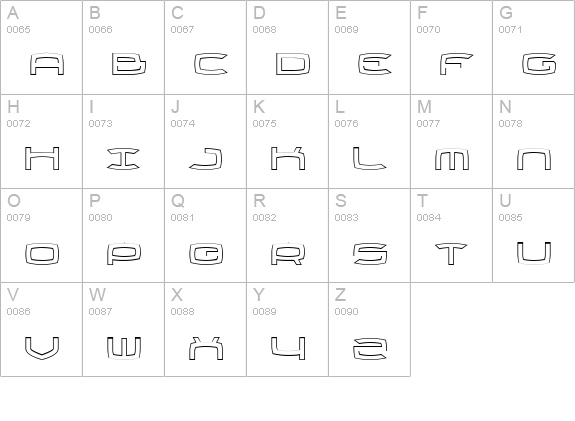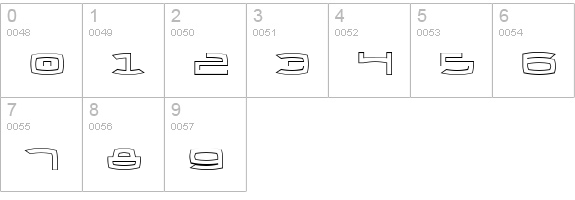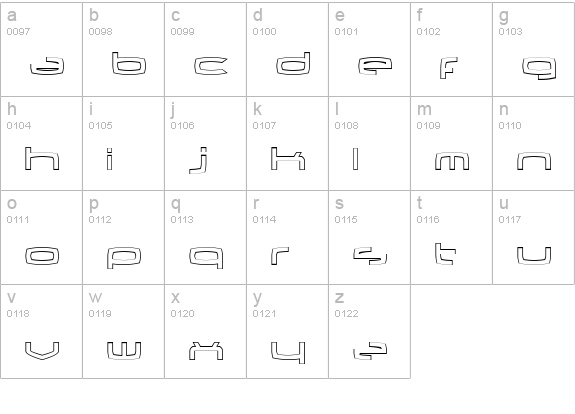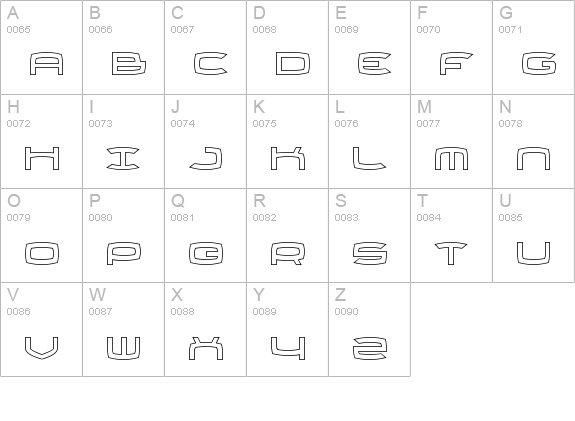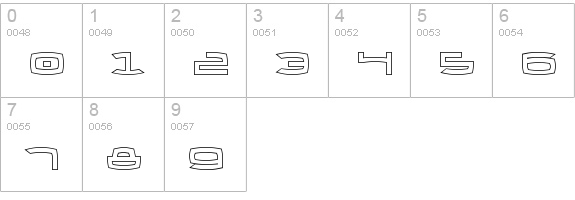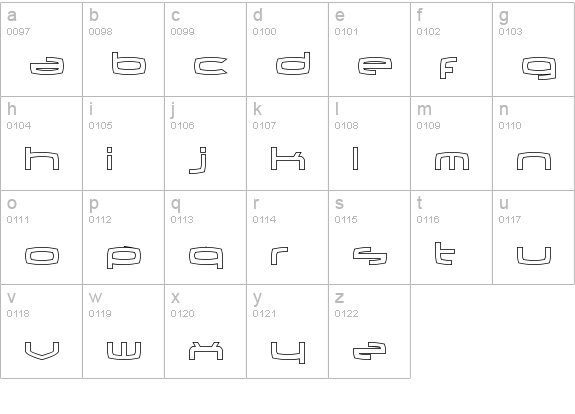
Introducing Thundergod II Outline font, a stunning display typeface that is perfect for making a bold statement. This font exudes power and energy with its sharp lines and modern design. Thundergod II Outline is ideal for headlines, posters, logos, and other creative projects that require a strong and impactful look. Best of all, Thundergod II Outline font is available for free download at FontsMarket.com. This means you can easily add this dynamic font to your collection without any cost. Don't miss out on the opportunity to enhance your designs with this eye-catching typeface that is sure to leave a lasting impression. Download Thundergod II Outline font today and let your creativity shine!